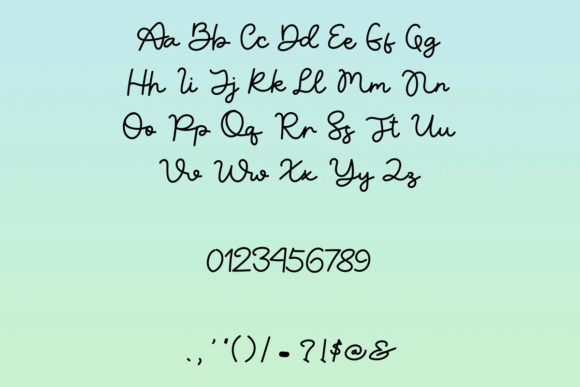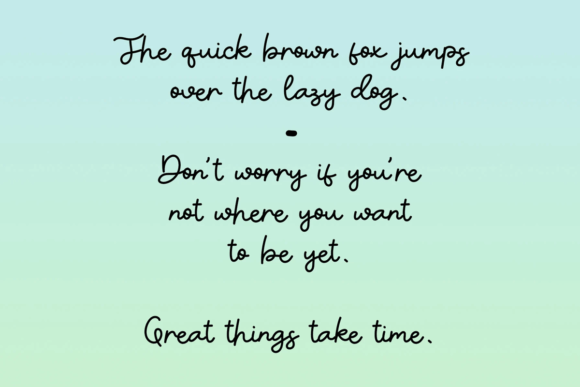
Discover the Timeless Elegance of the Allegro Font
As a designer, there’s nothing quite like the thrill of finding that perfect font to elevate your project from ordinary to extraordinary. It’s the moment when all the pieces come together, and your vision starts to take shape. For me, that moment came when I stumbled upon the Allegro Font – a stylish script that effortlessly combines vintage charm with modern sophistication.
The Allegro Font is more than just a pretty face; it’s a tool that can add depth and character to your designs. With its smooth, flowing lines and classic look, it’s perfect for projects where you want to evoke a sense of nostalgia and elegance. Whether you’re a seasoned pro or just starting out, the Allegro Font is an invaluable asset in your design arsenal.
- Unique Characteristics: The font features a modern, elegant design with clean lines, making it suitable for use in corporate branding, advertising, and editorial content.
Allegro Font Review
Allegro Font is a beautiful script font designed to add a touch of elegance to your designs. Here’s my honest review of this font.
- Legibility: The font is easy to read, even at smaller sizes, making it perfect for body text or headings.
- Flexibility: Allegro Font comes in multiple styles, including bold, italic, and regular, giving you plenty of options for your design needs.
- Aesthetic appeal: The font’s elegant script design is perfect for adding a touch of sophistication to your designs, especially for wedding invitations, menus, or other high-end projects.
- Limited font sizes: The font may not be ideal for very large or very small font sizes, as it may lose its elegance.
- Not ideal for sans-serif designs: Allegro Font is a script font and may not be the best fit for designs that require a sans-serif font.
Allegro Font is a great addition to any designer’s toolkit, especially for projects that require a touch of elegance and sophistication. While it may have some limitations, its beauty and flexibility make it a valuable asset for any designer looking to add some script flair to their designs.
Use Allegro Font for titles, headings, and emphasis to add a touch of elegance and sophistication to your designs.
Allegro Font is ideal for:
Business cards and brochures
Restaurant menus and signage
Any design where a touch of elegance and sophistication is desired